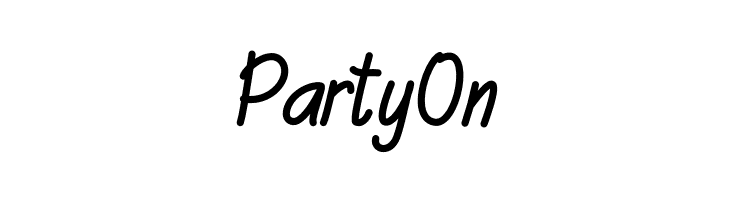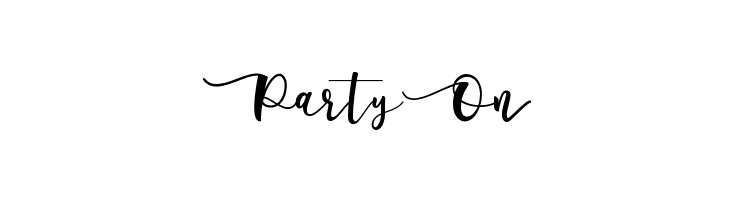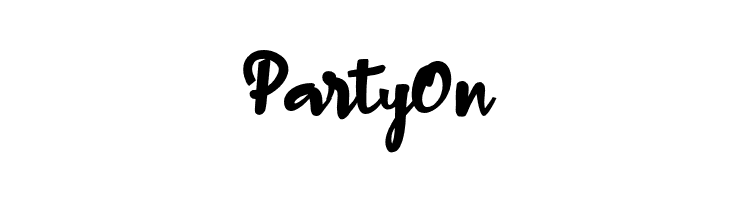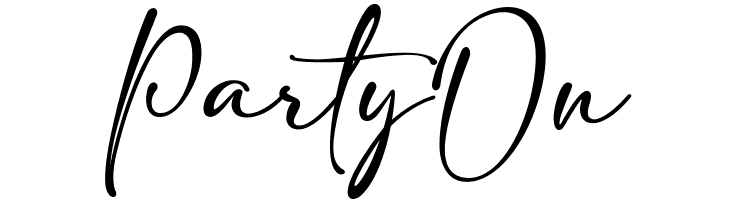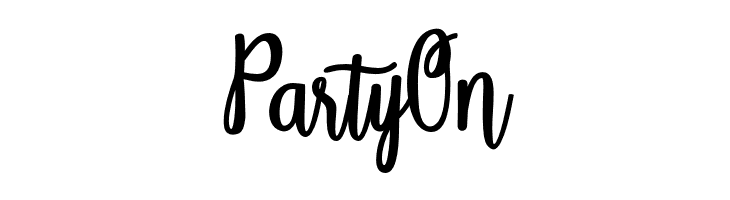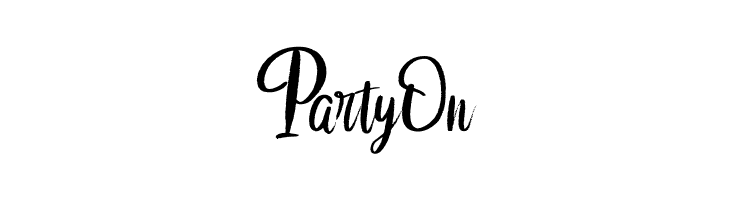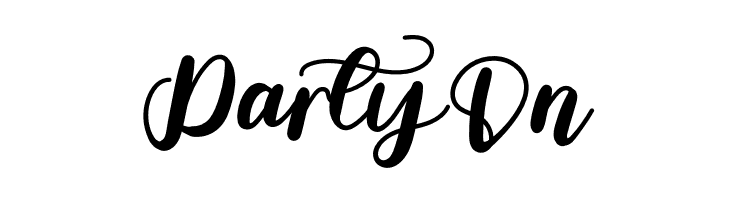
A bold, condensed typeface with tight spacing and strong visual impact.
A dynamic cursive font with a fluid, elegant style.
A bold, hand-drawn font with an energetic and artistic style.
A bold, handwritten-style font with dynamic and playful characteristics.
A playful and whimsical script font with a handwritten style.
A playful and artistic script font with flowing, cursive letterforms.
A lively script font with fluid, continuous strokes and a personal touch.
A lively, cursive handwritten font with expressive, flowing letterforms.
An artistic and elegant font with flowing curves and distinctive embellishments.
A modern, elegant script font with graceful curves and unique swashes.
A bold, handwritten-style font with dynamic and expressive characters.
A bold, expressive handwritten font with dynamic strokes and unique character flourishes.
A dynamic, expressive handwritten font with fluid, cursive strokes.
A bold, decorative font with a vintage, three-dimensional style.
A dynamic and expressive handwritten font with bold, fluid strokes.
A dynamic, handwritten-style font with bold, expressive characters.
A modern, high-contrast font with elegant, slender forms and decorative elements.
A bold, expressive brush-style font with dynamic strokes and a hand-painted appearance.
Elegant handwritten script font.
A cursive, handwritten font with elegant, flowing strokes.
A modern, elegant script font with flowing, interconnected characters.
A graceful and elegant script font with flowing, cursive letterforms.
A bold, expressive script font with a handwritten style.
A modern, elegant script font with flowing, connected strokes.
A playful, handwritten font with rounded, casual letterforms.
A flowing, cursive font with elegant, interconnected letters.
A casual, flowing handwritten script with elegant, connected letters.
An elegant, flowing script font with a natural handwritten style.
An elegant, whimsical script font with decorative swirls and artistic flair.
A playful, casual handwritten font with uneven strokes and organic flow.
A playful, casual handwritten font with irregular strokes and an organic flow.